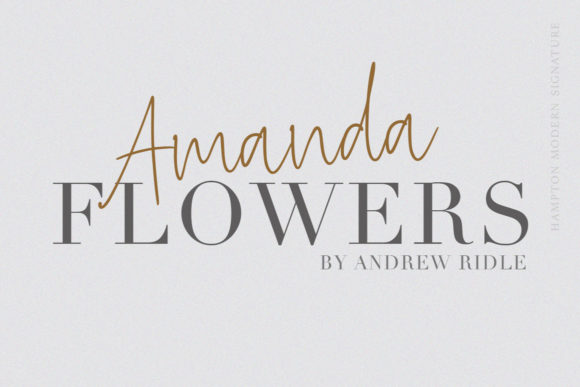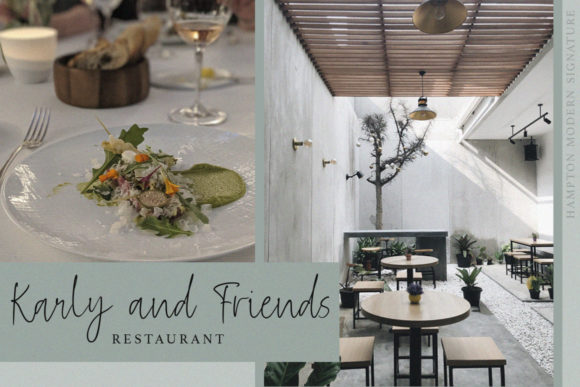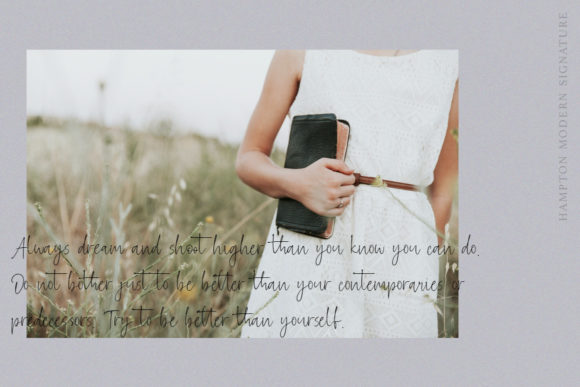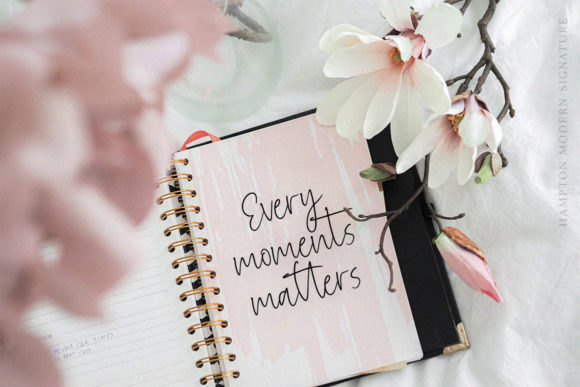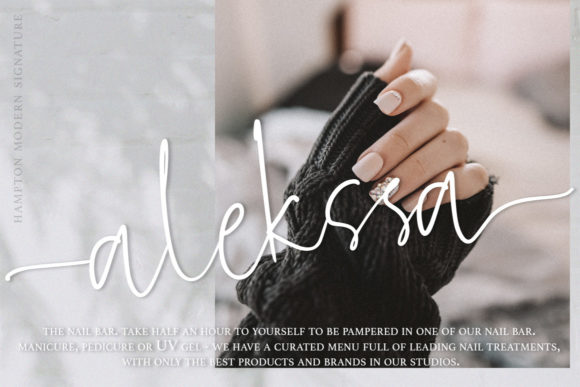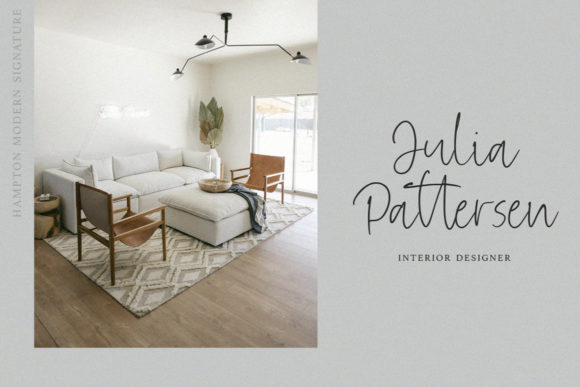
Hampton Font: Elevate Your Designs with Elegance and Sophistication
In the world of typography, fonts play a crucial role in conveying the tone and personality of a design. For designers and crafters seeking to add a touch of elegance and sophistication to their creations, the Hampton Font is an excellent choice. This cursive, stylish, and thin lettered handwritten font has the potential to enhance any project, making it a wonderful asset to your font library.
What is Hampton Font?
Hampton Font is a beautifully crafted handwritten font that exudes refinement and poise. Its cursive, connected letters flow smoothly, creating a sense of fluidity and continuity. The font’s thin lettering adds a level of delicacy, making it perfect for designs that require a touch of sophistication.
Key Features of Hampton Font
- Cursive and Connected Letters: Hampton Font features beautifully connected letters that create a flowing, elegant look.
- Thin Lettering: The font’s thin lettering adds a level of delicacy and sophistication to any design.
- Handwritten Style: The font’s handwritten style gives it a personal and unique touch, making it perfect for designs that require a human touch.
- Versatile: Hampton Font can be used for a wide range of design projects, from invitations and greeting cards to branding and advertising materials.
Why Choose Hampton Font?
There are several reasons why Hampton Font stands out from the crowd:
- Elegance and Sophistication: The font’s cursive, thin lettering and connected letters create a sense of elegance and sophistication, making it perfect for designs that require a high level of refinement.
- Unique and Personal Touch: The font’s handwritten style gives it a unique and personal touch, making it perfect for designs that require a human touch.
- Versatility: Hampton Font can be used for a wide range of design projects, making it a valuable addition to any font library.
- Easy to Read: Despite its thin lettering, Hampton Font is easy to read, making it perfect for designs that require a clear and concise message.
How to Use Hampton Font
Hampton Font can be used for a wide range of design projects, including:
- Invitations and Greeting Cards: The font’s elegant and sophisticated style makes it perfect for invitations and greeting cards.
- Branding and Advertising Materials: Hampton Font can be used to create a unique and memorable brand identity.
- Digital and Print Media: The font can be used for digital and print media, including social media graphics, blog posts, and magazine articles.
- Crafting and DIY Projects: Hampton Font can be used for crafting and DIY projects, such as handmade cards, scrapbooking, and journaling.
Tips and Tricks for Using Hampton Font
Here are some tips and tricks for getting the most out of Hampton Font:
- Pair with Bold Fonts: Pair Hampton Font with bold fonts to create a striking contrast and add visual interest to your design.
- Use for Headings and Titles: Use Hampton Font for headings and titles to add a touch of elegance and sophistication to your design.
- Pay Attention to Kerning: Pay attention to kerning to ensure that the font looks balanced and visually appealing.
In conclusion, Hampton Font is a beautiful and versatile font that can elevate any design with its elegance and sophistication. Its cursive, thin lettering and connected letters create a sense of fluidity and continuity, making it perfect for designs that require a high level of refinement. Whether you’re a designer, crafter, or DIY enthusiast, Hampton Font is a wonderful asset to your font library, and with these tips and tricks, you’ll be able to get the most out of this stunning font.